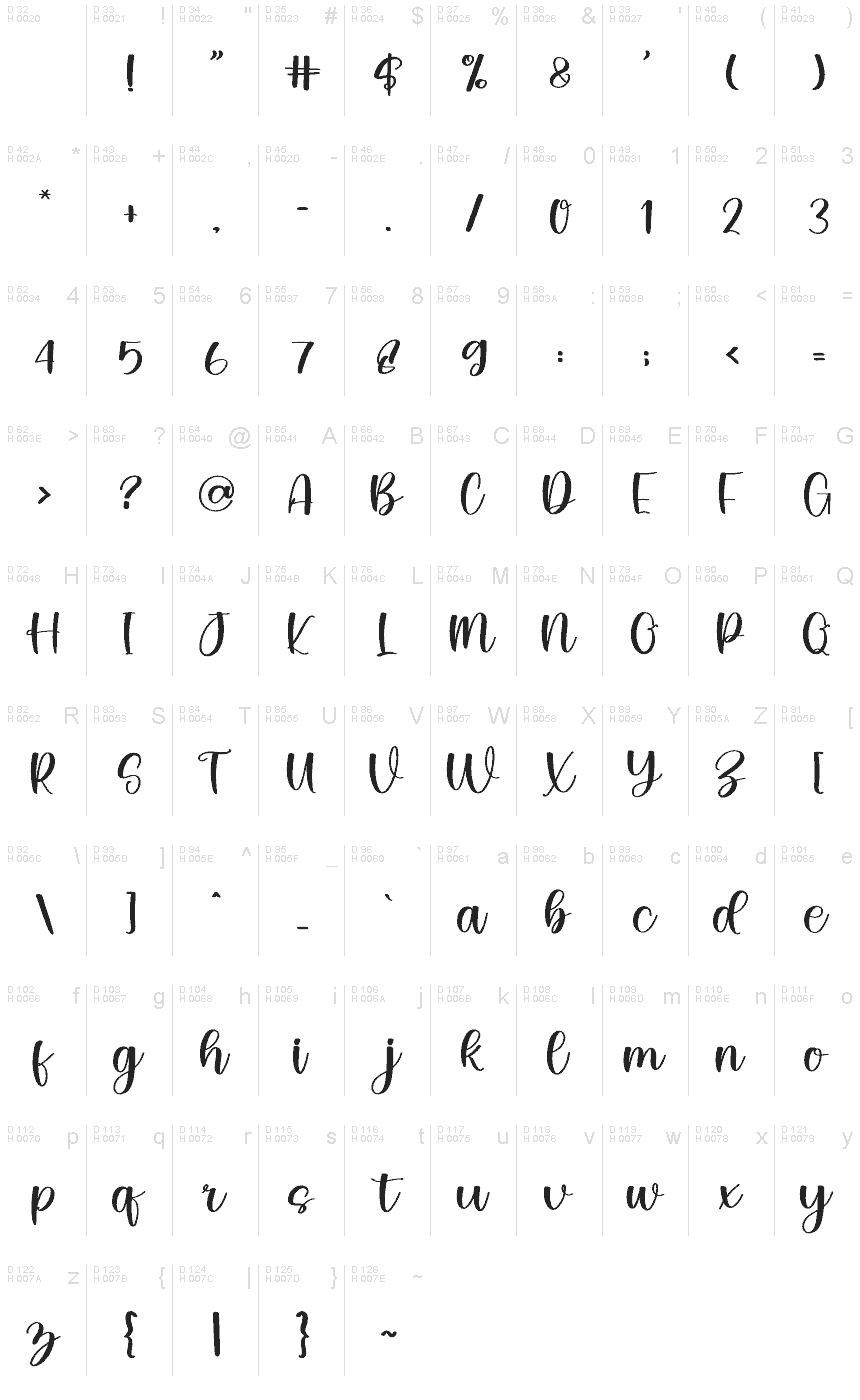
Started
Started font by Inermedia Studio is a decorative casual free handwritten font with an upright style. It has smooth delicate lines, beautiful curved ink trails, and stunning swashes at the end of the letters. This typeface perfectly mimics professional penmanship for creative projects and exudes elegance and professionalism.
Bring life to wedding invitations, posters, magazine covers, social media posts, branding projects or food packages. The font will also stylishly mark elegant personal diaries or even simple school notebooks. Use it on card designs (invitations or business cards), greeting cards and decorative birthday balloon writing!